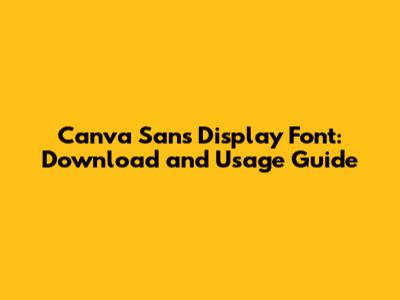
Hey guys! Ever stumbled upon a font that just clicks? Well, let's dive deep into the world of Canva Sans Display, a font that's been making waves in the design community. Whether you're a seasoned designer or just starting, understanding and utilizing this font can seriously up your creative game. We're going to cover everything from its origins to how you can get your hands on it, and even some cool ways to use it in your projects. So, buckle up and let’s get started!
What is Canva Sans Display?
Canva Sans Display is a typeface created by Canva, a popular online design platform known for its user-friendly interface and vast library of design elements. This font is specifically designed to be versatile and readable, making it a great choice for a wide range of projects. It balances modern aesthetics with functional design, ensuring that it looks good whether it's used in headings, body text, or even logos. Its clean lines and balanced letterforms make it a reliable option for both digital and print media.
The font family includes various weights and styles, offering flexibility in design. You can choose from light, regular, bold, and even italic versions to create different effects and hierarchies in your text. This adaptability is one of the reasons why Canva Sans Display has become a favorite among designers who need a font that can perform well in various contexts. Whether you're designing a sleek, minimalist website or a vibrant, eye-catching poster, this font can adapt to your needs.
Another key feature of Canva Sans Display is its excellent legibility. The letterforms are carefully crafted to ensure they are easily readable, even at small sizes. This is particularly important for body text, where readability is paramount. The font also performs well on screens, making it a great choice for websites, apps, and other digital media. Its clear and crisp appearance ensures that your message is communicated effectively, regardless of the medium. Furthermore, the font includes a comprehensive set of characters, including numerals, punctuation marks, and symbols, making it suitable for use in multiple languages and contexts. This versatility makes it a valuable asset for any designer looking to create professional and polished designs.
Why Use Canva Sans Display?
So, why should you even bother with Canva Sans Display? Well, there are tons of reasons! First off, it’s super versatile. You can use it for everything from website headers to social media graphics. It’s clean and modern, so it gives off a professional vibe without being stuffy.
Another big plus is its readability. Some fonts look cool but are a pain to read, especially in large blocks of text. Canva Sans Display is designed to be easy on the eyes, which means your audience will actually stick around to read what you have to say. Plus, because it’s part of the Canva family, it integrates seamlessly with the platform. If you’re already using Canva for your designs, using Canva Sans Display is a no-brainer.
Moreover, the font's neutrality makes it a fantastic choice for branding projects. It doesn't impose a strong personality, allowing the brand's message and visual elements to take center stage. This is particularly useful when you want a font that complements rather than competes with other design elements. Additionally, Canva Sans Display supports a wide range of languages, making it suitable for international projects. Its consistent appearance across different character sets ensures that your designs maintain a cohesive look, regardless of the language being used. The font also includes various OpenType features, such as ligatures and alternate characters, which can add a touch of sophistication and uniqueness to your designs. These features allow you to fine-tune the appearance of the text and create a more polished and professional look.
However, there are a few workarounds. Sometimes, you can find similar-looking fonts on other font websites that offer free or commercial licenses. Websites like Google Fonts, Adobe Fonts, and Font Squirrel are great places to start your search. While you might not find the exact Canva Sans Display, you can often find fonts that are close enough to achieve a similar aesthetic. Additionally, some users have reported being able to extract the font files from Canva's design assets, but this method is not officially supported and may violate Canva's terms of service. It's always best to check the licensing terms before using any font to ensure you're complying with the legal requirements.
Another option is to subscribe to Canva Pro, which gives you access to a wider range of fonts and design assets. While you still won't be able to download the font for external use, having access to Canva Pro can expand your design options and allow you to use Canva Sans Display in all your Canva projects. Moreover, Canva Pro offers additional features like background removal, magic resize, and premium templates, which can significantly enhance your design workflow. Ultimately, the best way to use Canva Sans Display is within the Canva platform, where it is fully supported and optimized for use with Canva's design tools.
Using Canva Sans Display in Your Designs
Alright, you've got Canva Sans Display, now what? Let's talk about how to make the most of it in your designs. First off, think about hierarchy. Use Canva Sans Display Bold for your headings to grab attention and then switch to the regular weight for your body text to make it easy to read. Mixing weights is a simple but effective way to create visual interest.